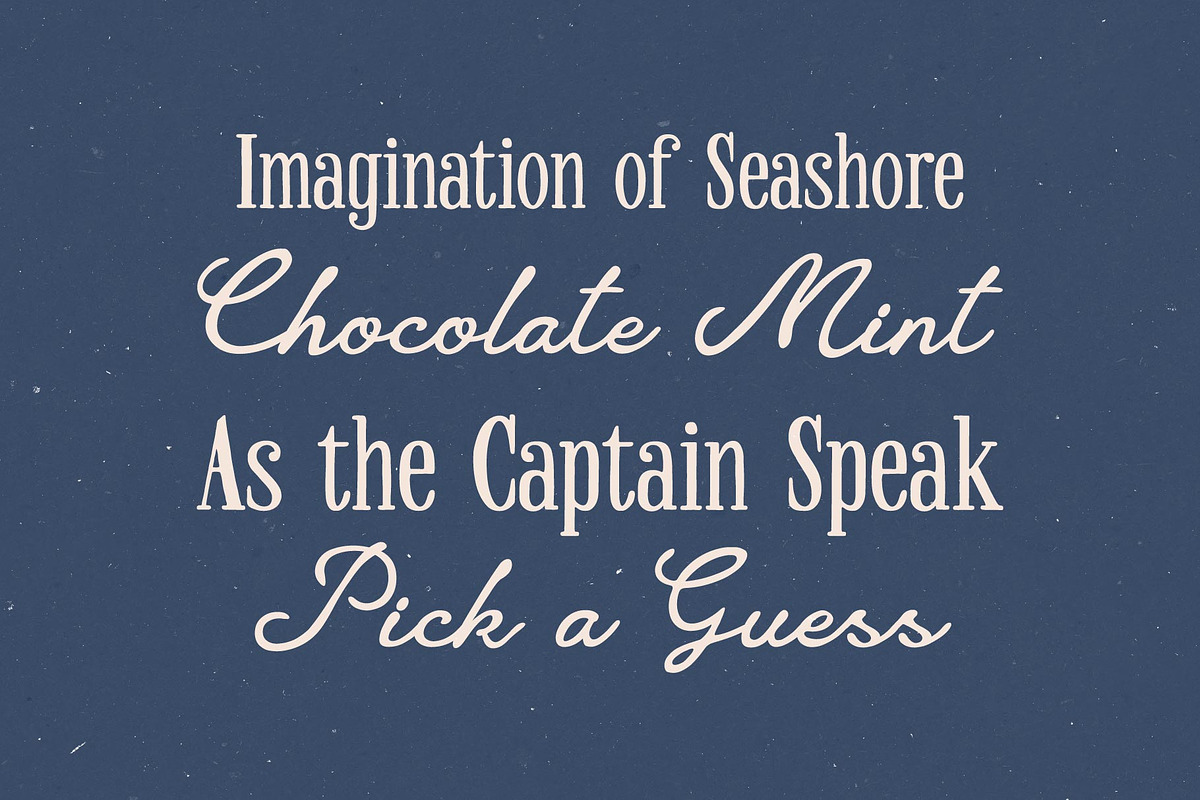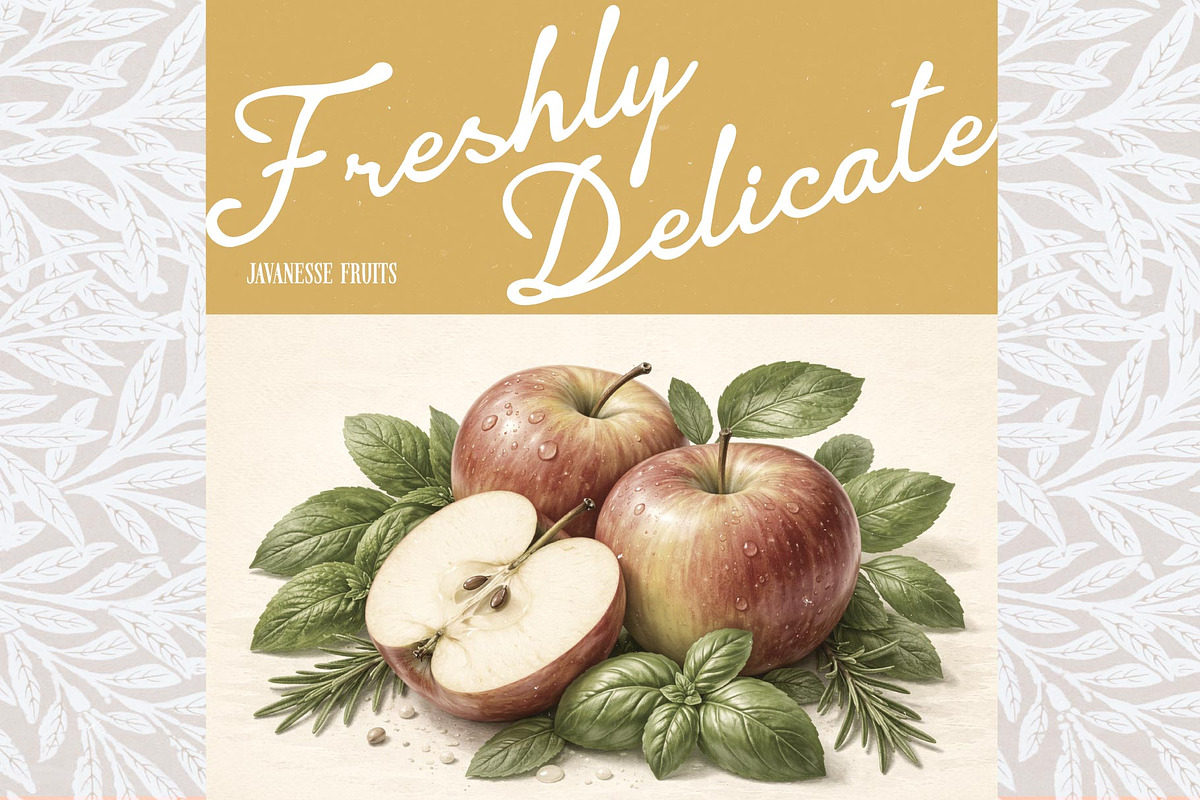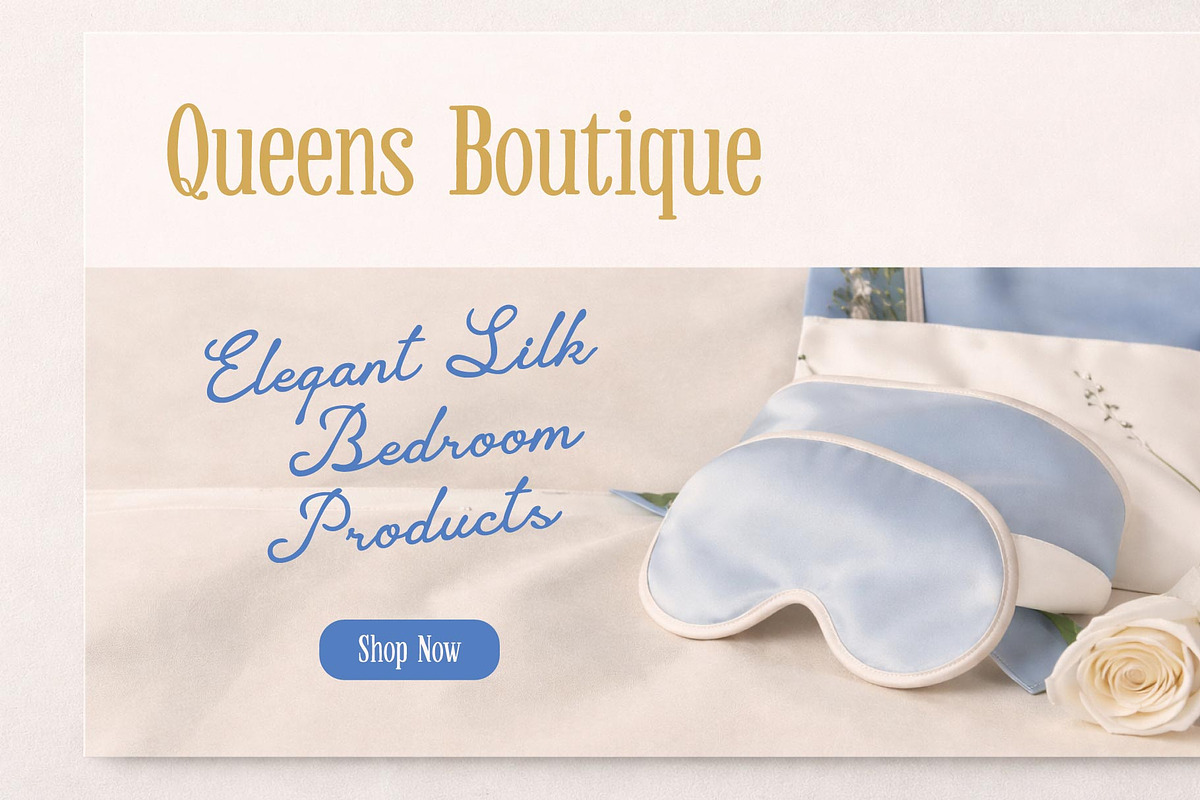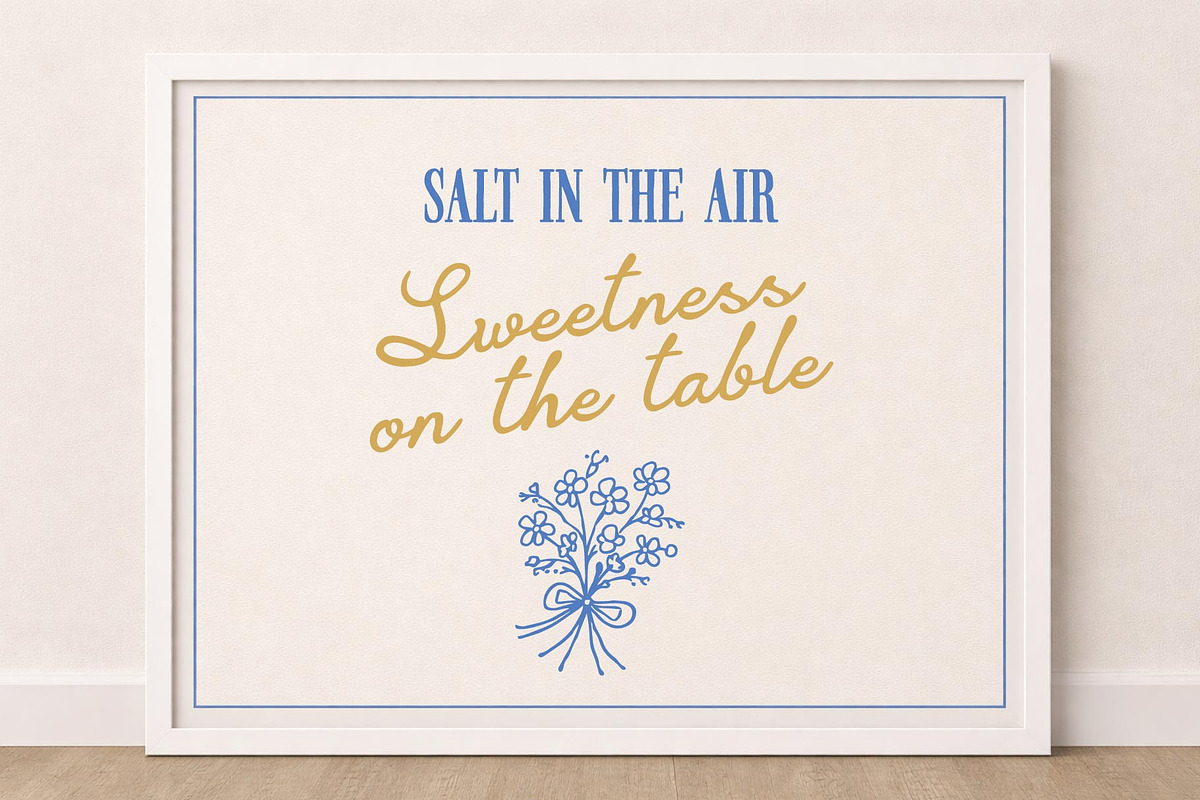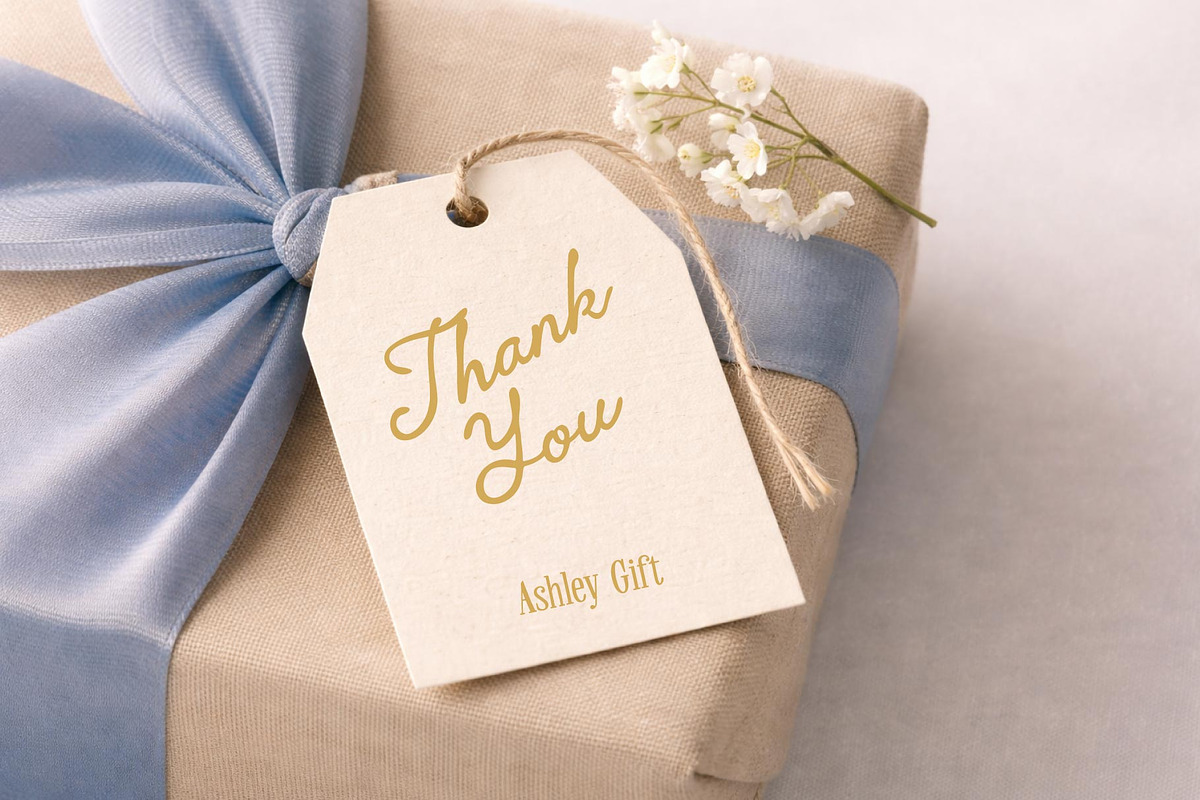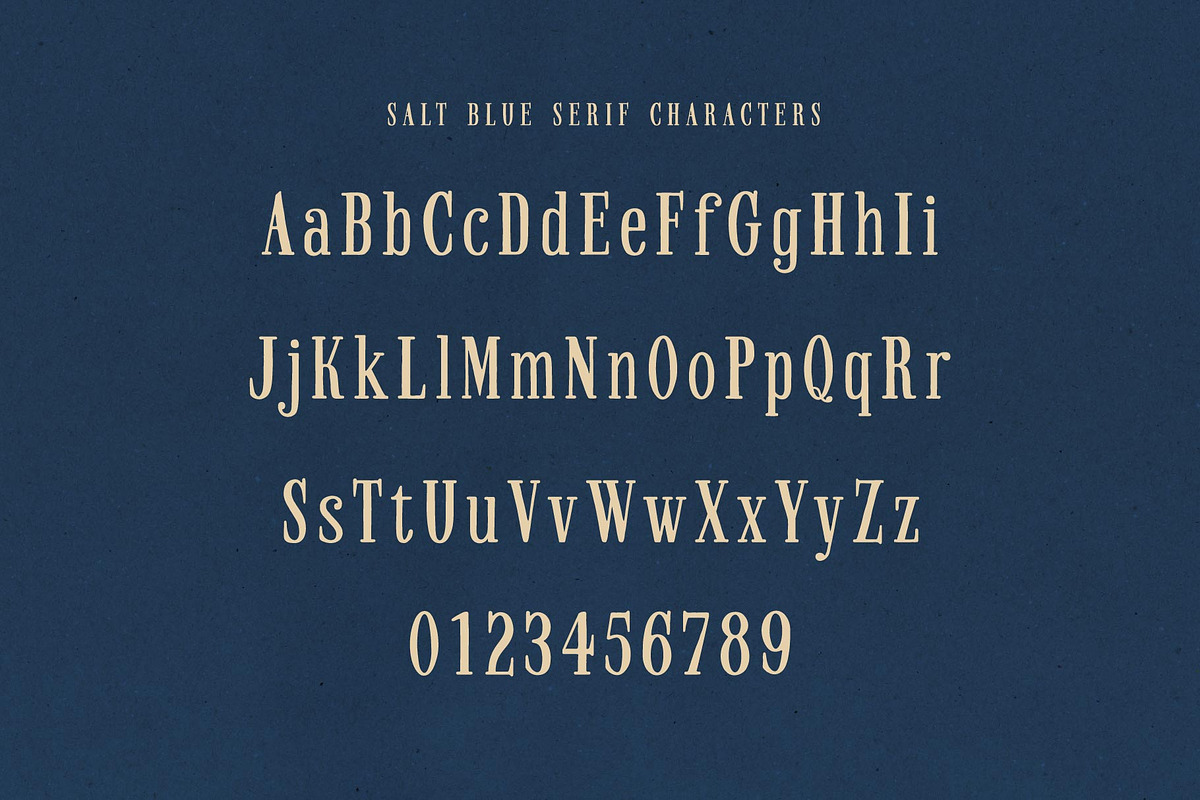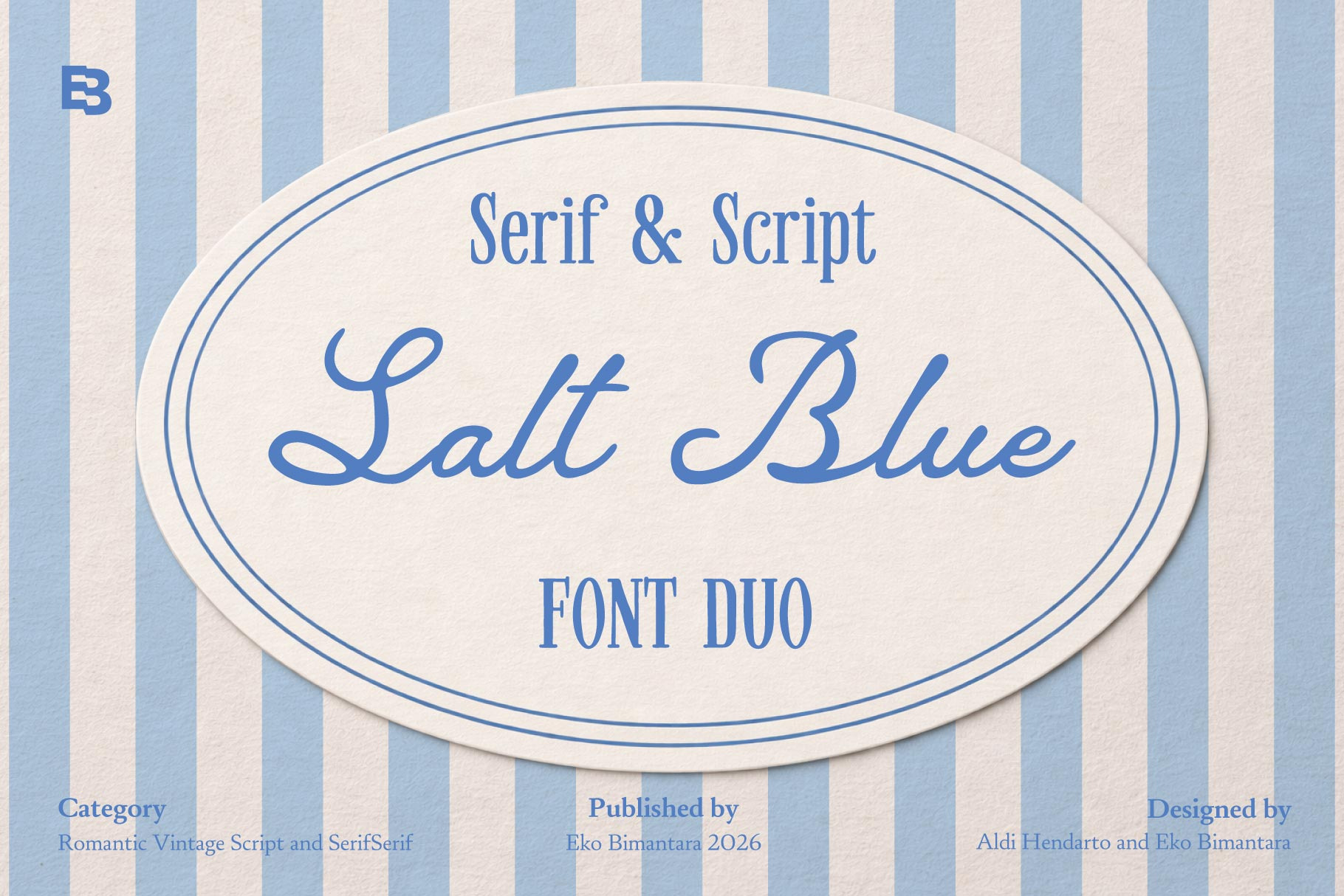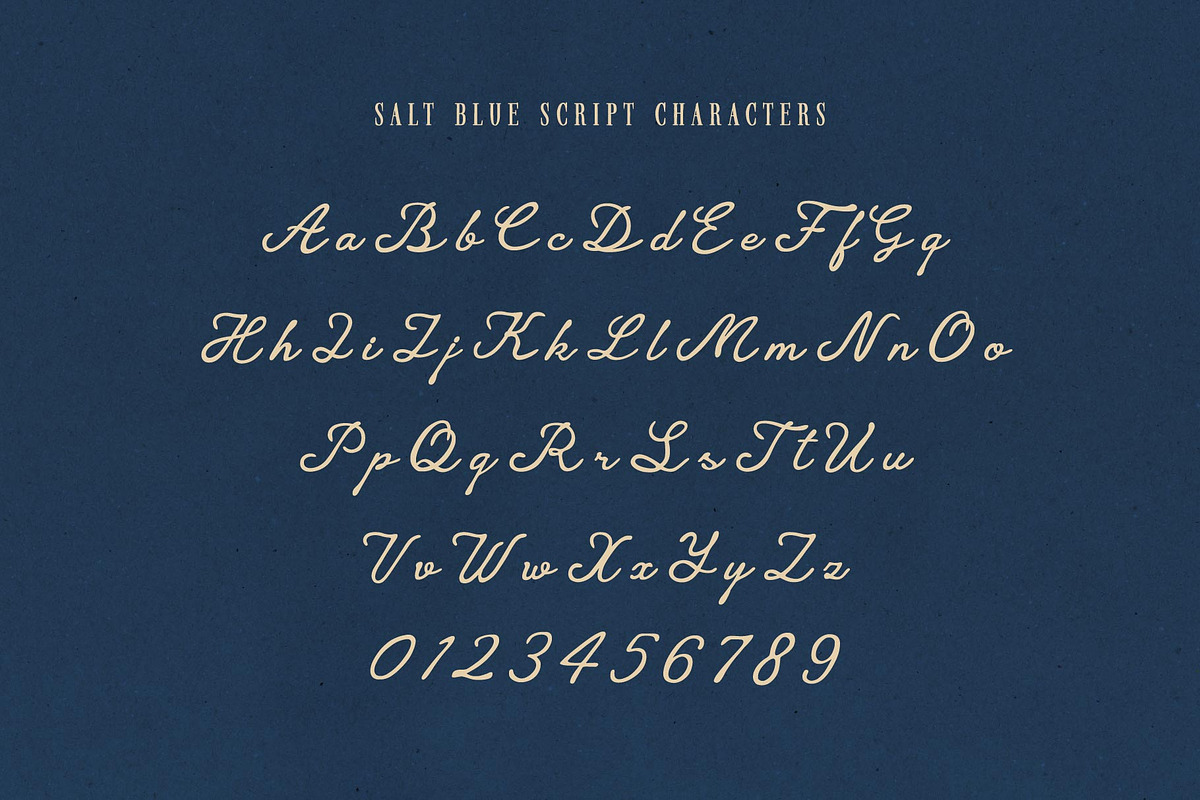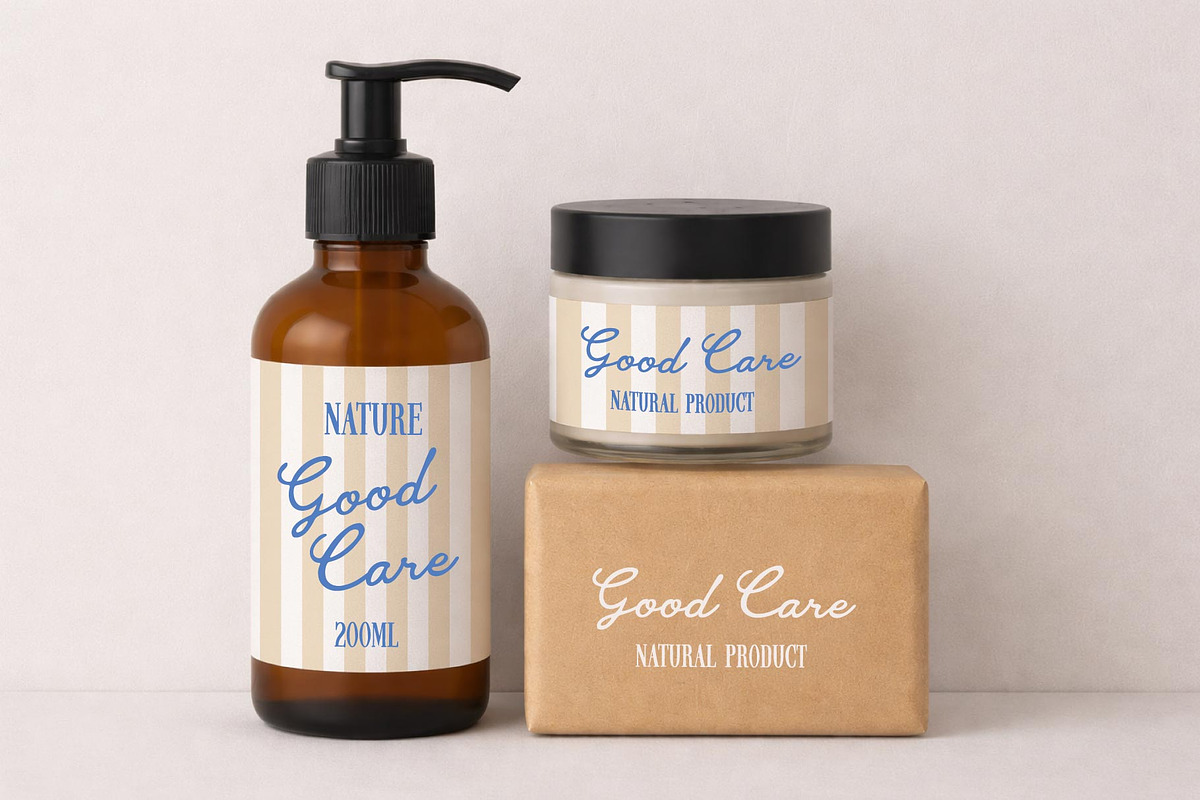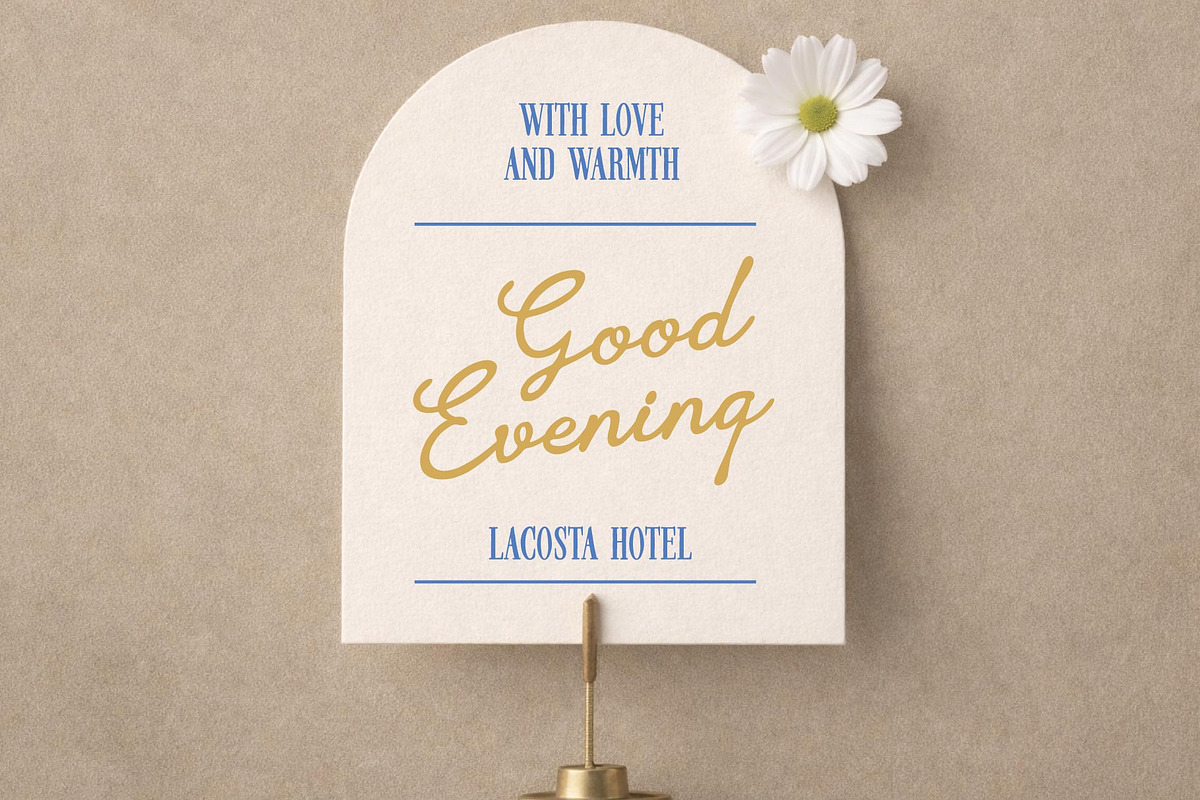
Salt Blue; Romantic Font Duo
Salt Blue is a refined serif and script font duo inspired by romantic vintage aesthetics and timeless elegance. This thoughtfully crafted pairing blends a graceful handwritten script with a clean, classic serif, creating a harmonious balance between softness and structure. The script features flowing, well-connected letterforms with smooth curves and natural rhythm, while the serif offers poised proportions and subtle character, making it ideal for complementary typography. Perfect for branding, wedding stationery, packaging, editorial layouts, websites, and upscale product design, Salt Blue delivers a nostalgic yet polished impression. Its versatile combination allows designers to create expressive headlines paired with sophisticated supporting text, bringing warmth, charm, and professionalism into every project.